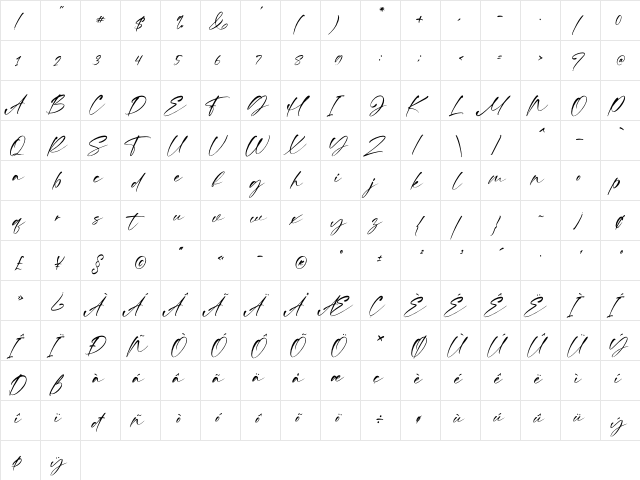
Gilliany Regular
| Designer | Pen Culture |
Design Context for Gilliany Typeface
Gilliany is a composed and adaptable typeface that performs quietly and consistently across a wide range of design contexts.